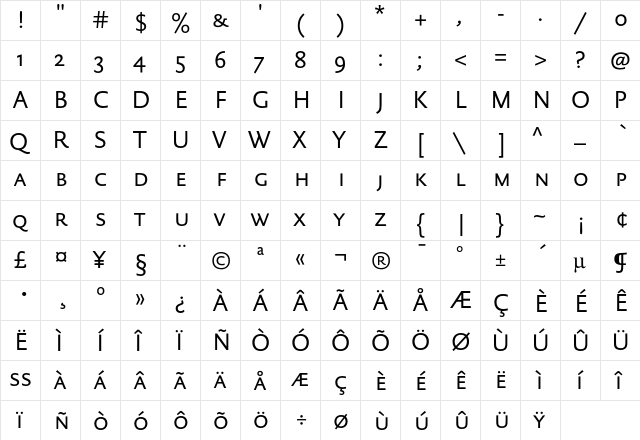
DTLDocumentaSansT Caps
Design Context for DTLDocumentaSansT Typeface
DTLDocumentaSansT is a composed and adaptable typeface that performs quietly and consistently across a wide range of design contexts.